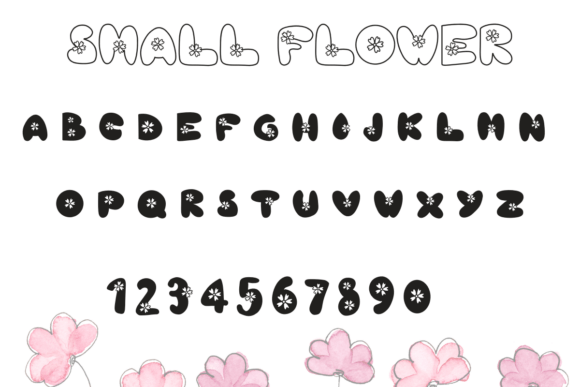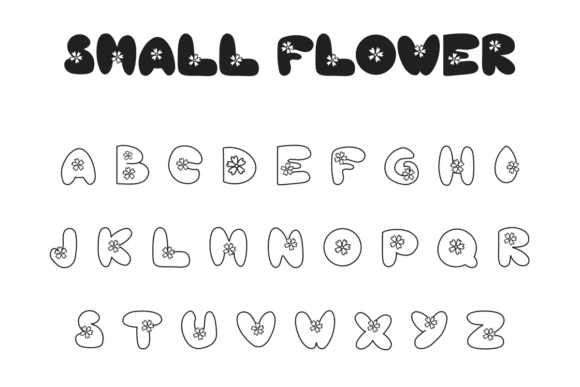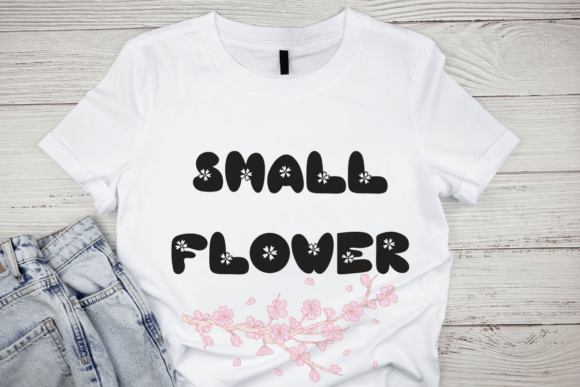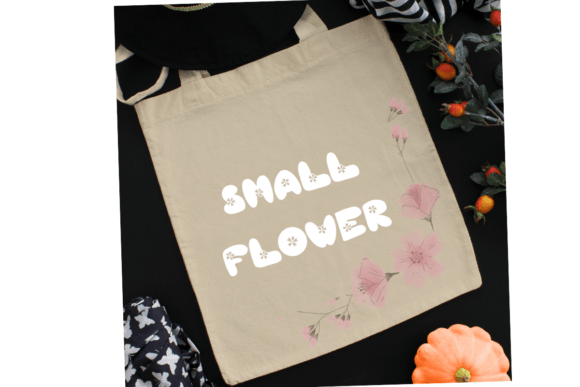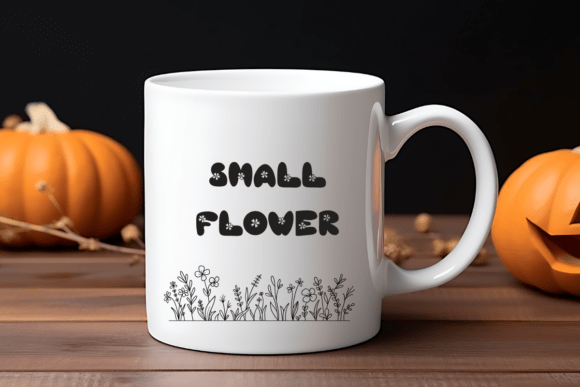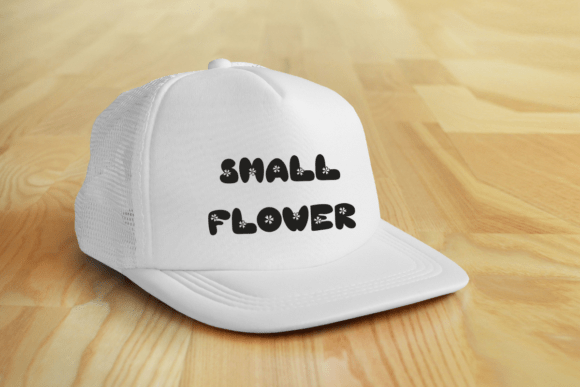
Introduction to Small Flower Font
Small Flower font is a cheerful decorative typeface that inflates every glyph into a soft, rounded bubble and plants tiny daisy cut-outs where counters and dots would be.
The weight is even and low-contrast, with plump bowls, cushioned terminals, and compact ascenders and descenders that keep words looking dense yet friendly Its flower perforations create a playful internal rhythm without sacrificing legibility, and matching numerals echo the same buoyant geometry.